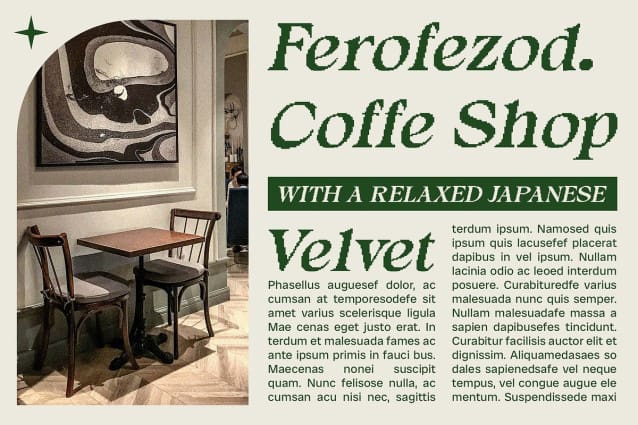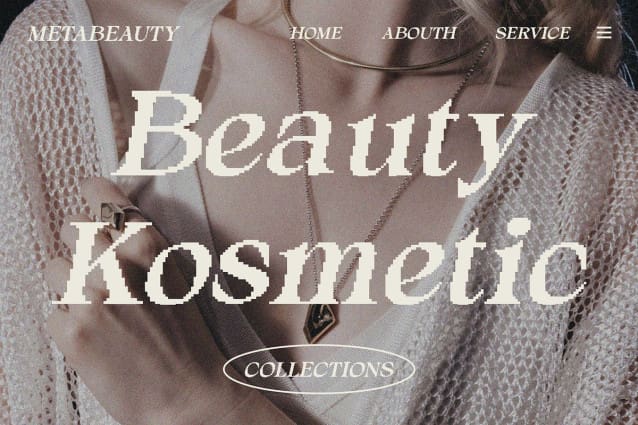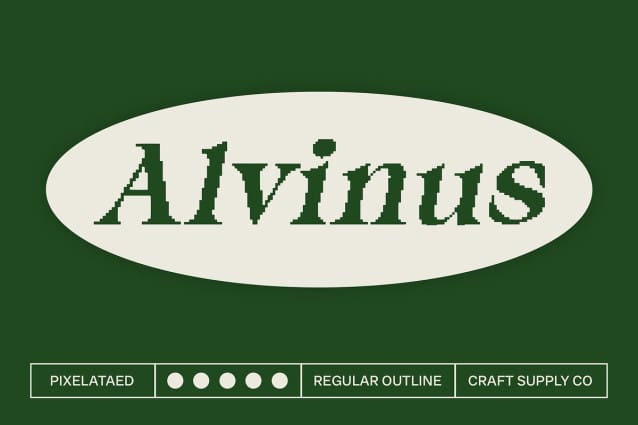
Alvinus Pixel Font
Alvinus Pixel Font is a modern serif font with an elegant form and a pixel effect that offers a blend of classic aesthetics with digital elements. The pixel effect provides a unique contemporary touch, creating an attractive and innovative appearance.
With its elegant form and pixel effect, Alvinus Pixel is perfect for designs seeking to combine traditional elegance with modern technological nuances. This font ensures your projects stand out with a distinct and innovative impression, making it suitable for branding, posters, and promotional materials.
Alvinus Pixel enhances branding and posters with its unique blend of classic elegance and digital aesthetics. Its pixel effect adds a modern twist, ensuring your designs convey sophistication and innovation with a contemporary edge.
Versatile and distinctive, Alvinus Pixel adapts seamlessly to various design applications. Whether used in digital or print media, this font provides a timeless yet modern appeal that enhances the overall impact of your creative projects.